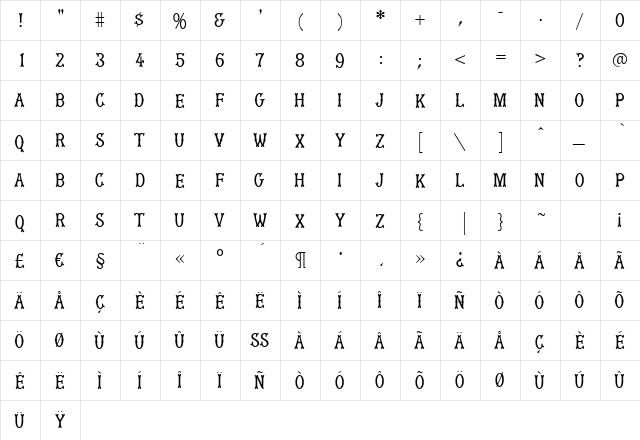
MuskitosCaps Regular Font Preview
MuskitosCaps Regular
MuskitosCaps Regular Font Details
Design Context for MuskitosCaps Typeface
MuskitosCaps takes a measured approach to typography — its balanced proportions and neutral character make it a reliable workhorse for both digital and print work.